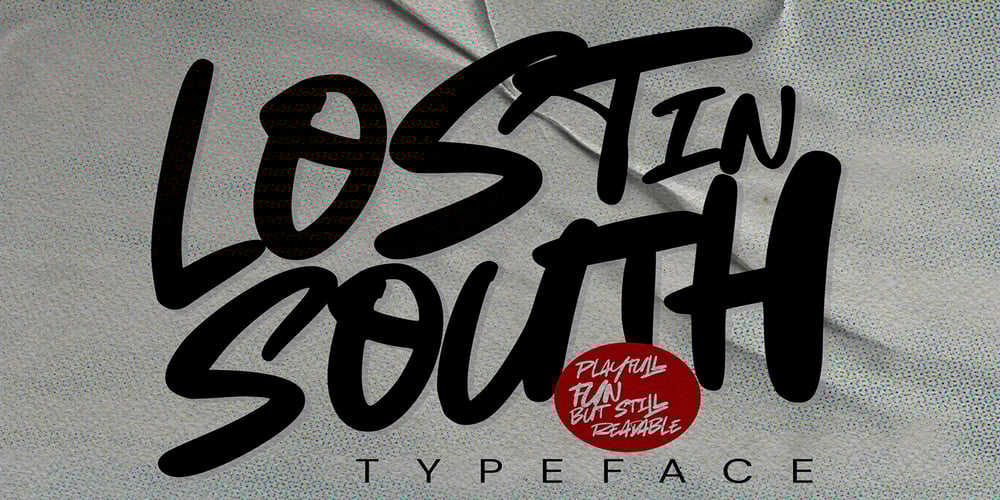
Lost In South Font Family was designed by Abdul Malik Wisnu, Anang Fibriyanto and published by Gassstype. Lost In South contains 1 styles and family package options. Introducing Lost in South – Natural Brush Font is a Signature Style and classy style, this font is great for your creative projects such as watermark on photography, and perfect for logos & branding.Lost in South a natural handwritten feel. This handmade font will make your design has a beautiful natural touch for each details.